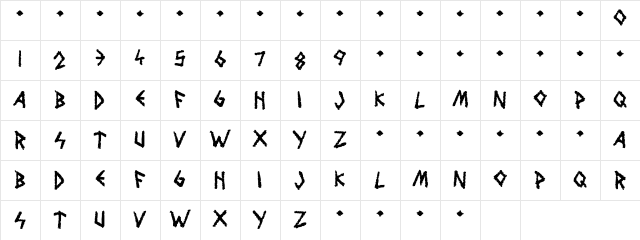
Wolves and Ruin Regular
Design Context for Wolves and Ruin Typeface
Wolves and Ruin is a composed and adaptable typeface that performs quietly and consistently across a wide range of design contexts.